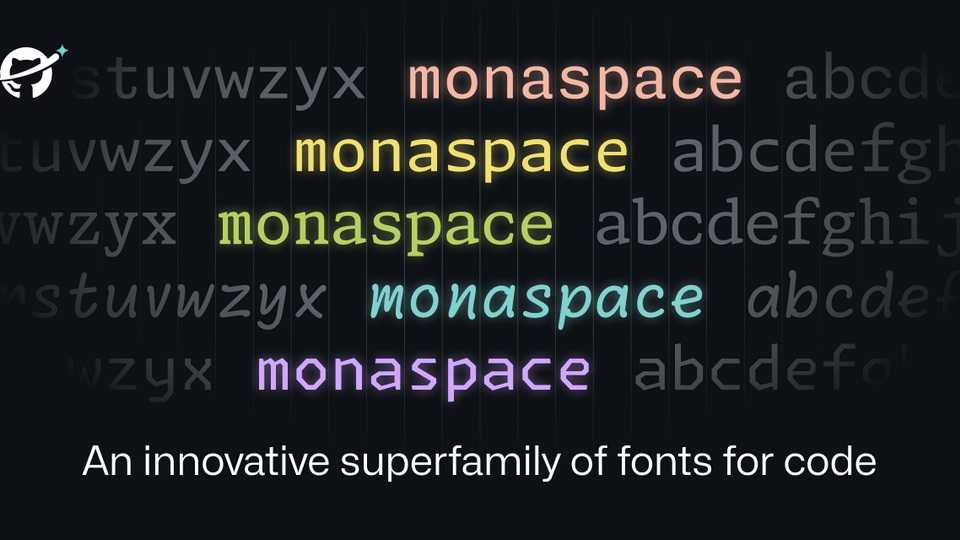
Download Monaspace font, a monospaced type superfamily with some modern tricks up its sleeve. Monaspace consists of five variable axis typefaces. Each one has a distinct voice, but they are all metrics-compatible with one another, allowing you to mix and match them for a more expressive typographical palette.
Designer: GitHub Next